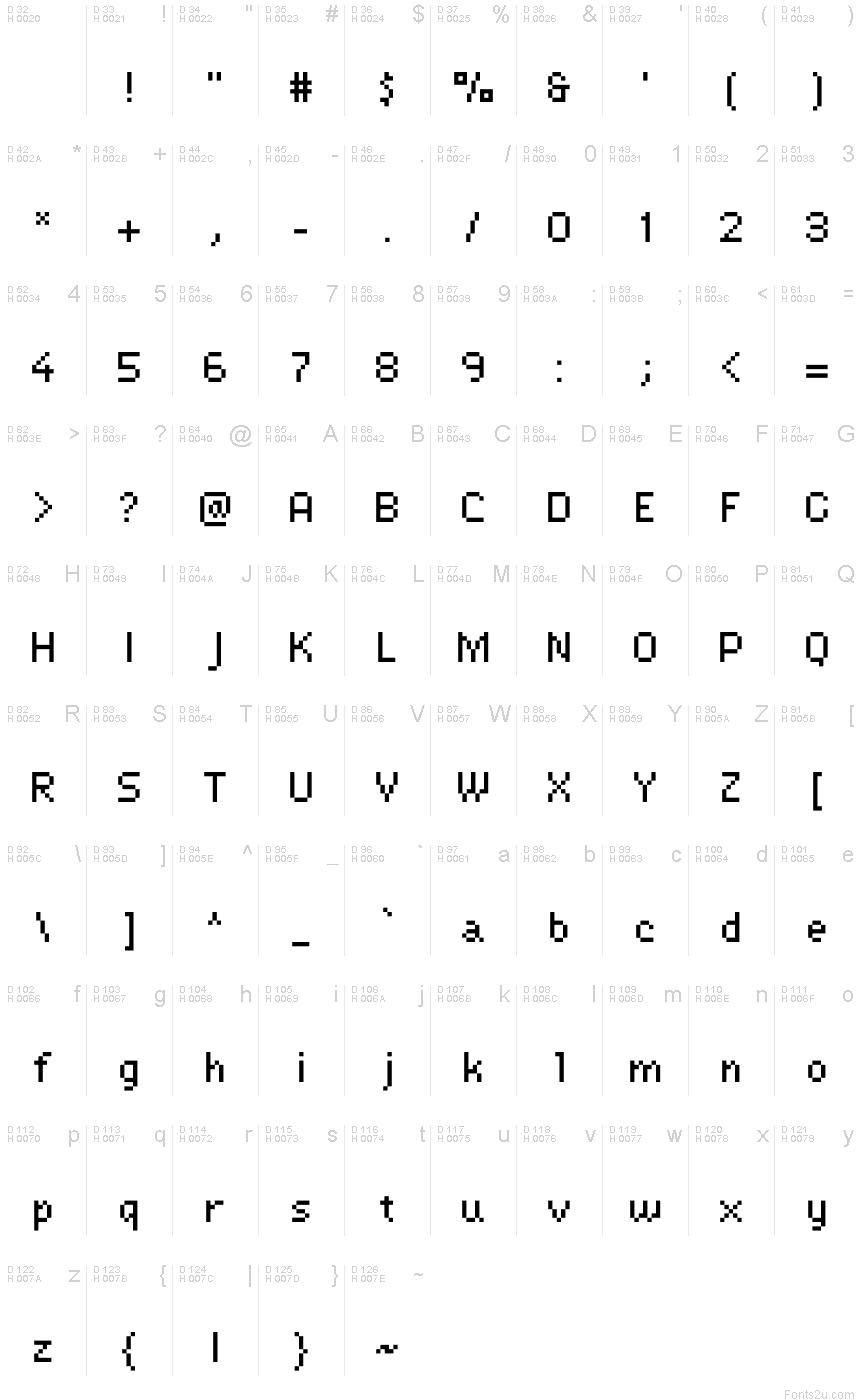
Lexipa
Lexipa font by Julien Janiszewski is a free pixel bitmap typeface that turns each letter into a tiny piece of modular art. Built from chunky square blocks with unexpected gaps and stair-stepped diagonals, it has the crunchy, lo‑fi feel of early game consoles but with a more experimental, asymmetric twist. The spacing is open and airy, so words stay readable even as they break down into visible pixels, giving your layouts a crisp, digital texture.
Using Lexipa, this free font shines on indie game titles, retro UI overlays, glitchy poster art, electronic music covers, tech event branding, and experimental zines. Its strong grid makes it easy to align with icons or sprites, so everything snaps together like tiles on a screen. For a simple combo, pair Lexipa with a clean geometric sans for body copy and let this pixel typeface handle logos, headers, and bold navigation labels.